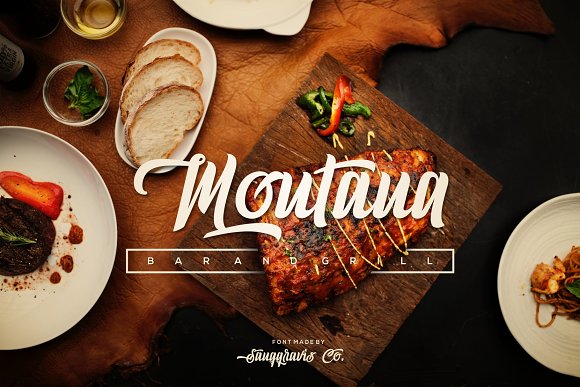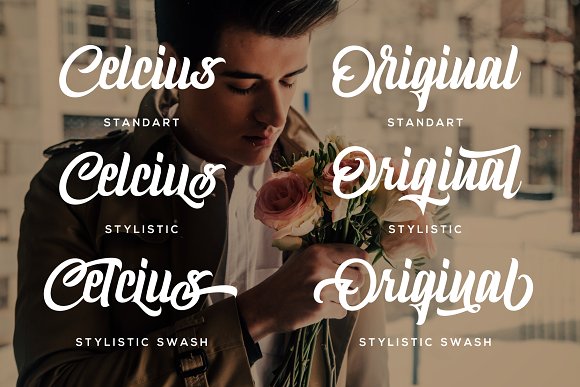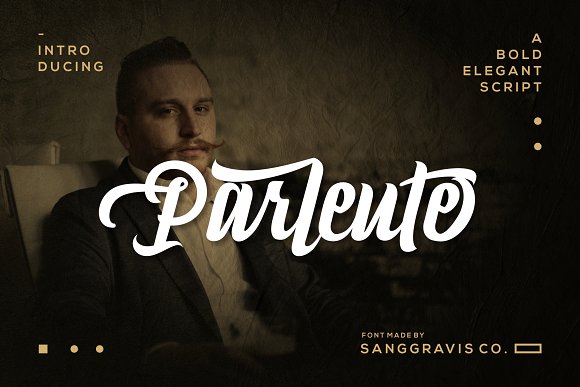
Parlente Font
Parlente script font Inspired by the lifestyle of the 1920s namely classy, ​​elegant, glamorous, disciplined and clean. Combined with the Hand Lettering style with many alternative characters, and swash. It’s very versatile and has many choices for customization.
I hope this can inspire everyone in making work. With all the things we mentioned, This font is perfect for many of your design projects, such as Flyers, Logo Design, Badges, Packaging, Apparel Design, Invitation, and more.